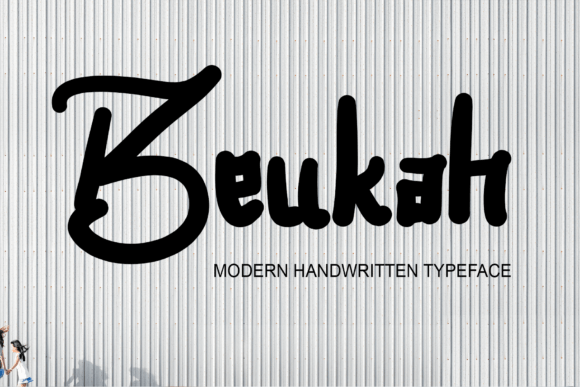
Unleash the Beauty of Imperfection with Beukah Font: Your Key to Authentic Handwritten Charm
In a world saturated with digital perfection, Beukah Font emerges as a breath of fresh air, capturing the allure of handwritten authenticity. Inspired by the beauty of imperfections, this captivating script font exudes a genuine, human touch that will transform your creative visions into captivating masterpieces.
Adorn your designs with the unique characteristics of Beukah Font, reflecting the elegance of handwritten notes and the warmth of personal expression. Whether you're crafting logos, branding materials, social media graphics, or invitation cards, Beukah Font will infuse your creations with a touch of heartfelt charm.
Handpicked by Canden Meutuah, a renowned font designer with an eye for detail, Beukah Font is a celebration of the imperfect. Its bold and cool demeanor adds a touch of edginess, making it the perfect choice for those seeking a font that stands out.
Embrace the Artistic Freedom of Beukah Font:
- Say goodbye to mundane, sterile typography and embrace the artistry of Beukah Font. Its carefully crafted curves and fluid strokes add a touch of elegance to your designs, making them resonate with a genuine, human connection.
- Unleash your creativity and explore the endless possibilities that Beukah Font offers. Whether you're a seasoned designer or just starting out, this versatile font will adapt seamlessly to your vision, adding a layer of depth and personality to your work.
- Experience the ease of use that Beukah Font provides. Its user-friendly design makes it accessible to designers of all levels, allowing you to incorporate its charm into your projects effortlessly.
Join the Creative Revolution with Beukah Font:
Dive into a world where creativity flourishes and authenticity reigns supreme. Beukah Font is the ultimate tool for designers who value the beauty of imperfection and seek to create designs that speak to the heart. Its bold, handwritten style will captivate your audience, leaving a lasting impression.
Elevate your designs to new heights with Beukah Font. Its unique characteristics and user-friendly design make it an invaluable asset for any creative professional. Embrace the power of handwritten authenticity and watch your creations come to life in a way that's both captivating and unforgettable.